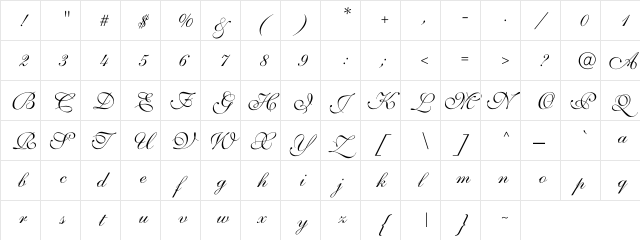
Parsons Italic Regular
Design Context for Parsons Italic Typeface
Parsons Italic is a composed and adaptable typeface that performs quietly and consistently across a wide range of design contexts. The slanted form adds forward momentum and visual energy.